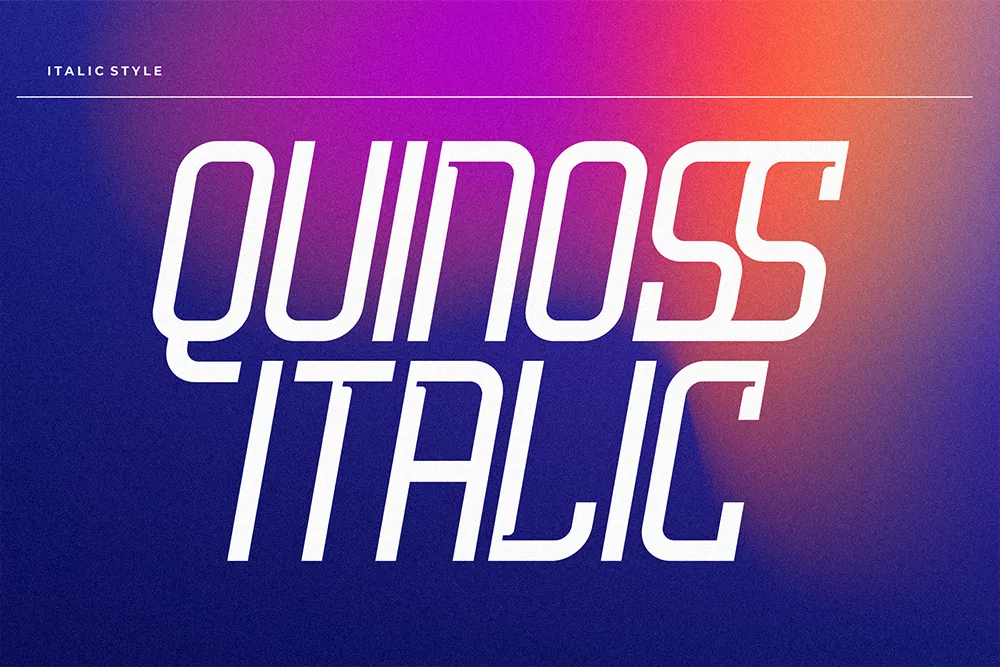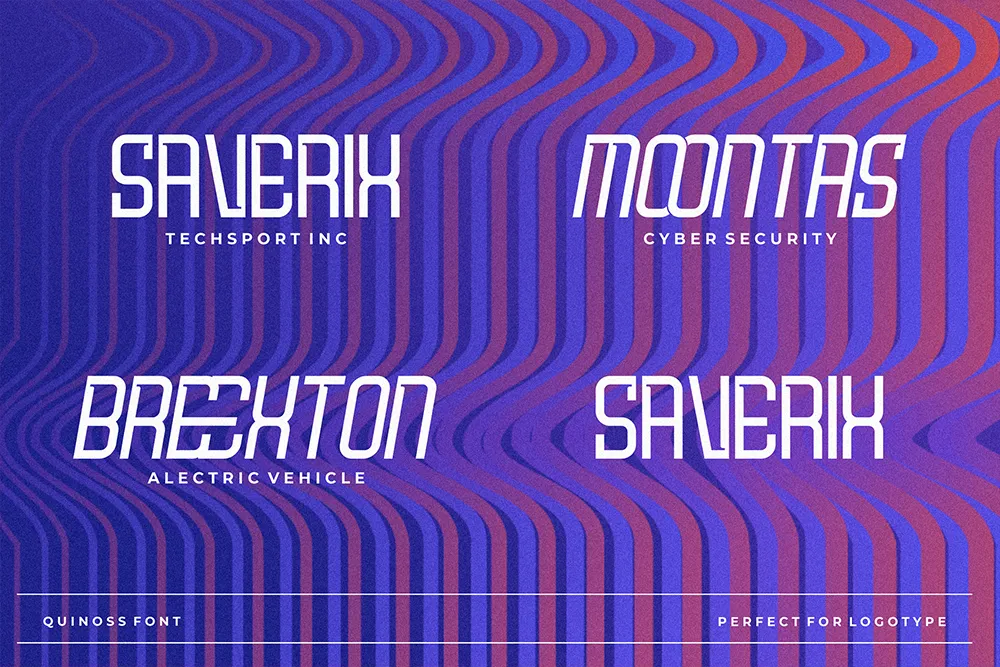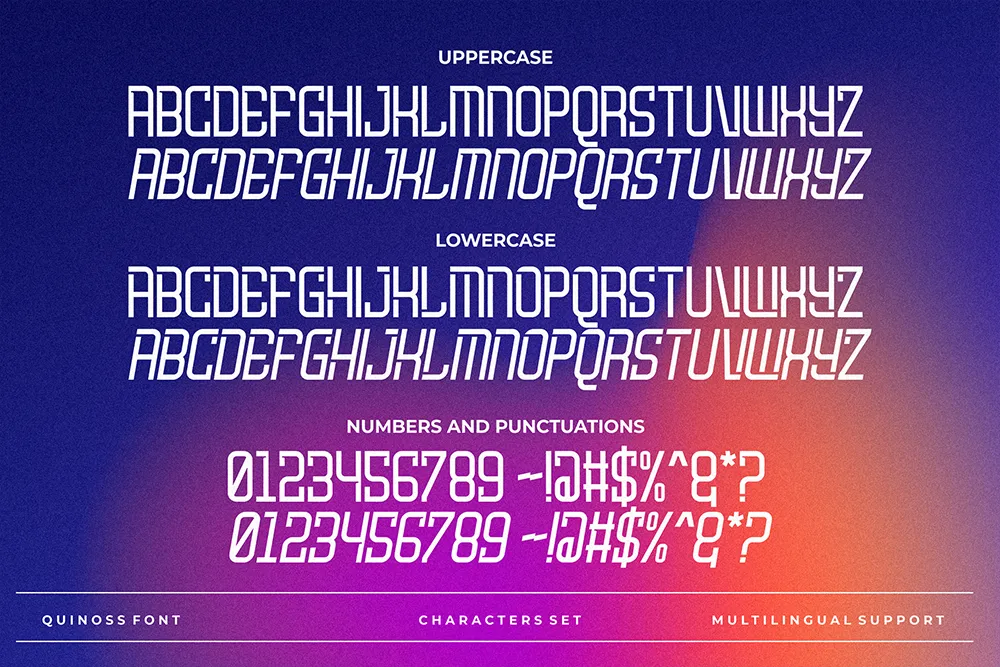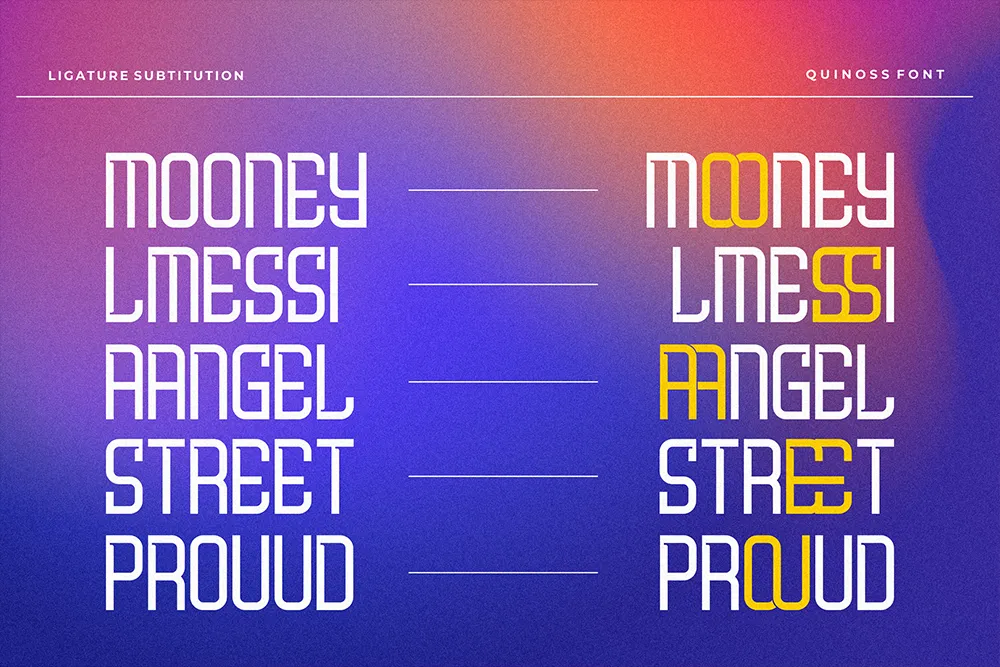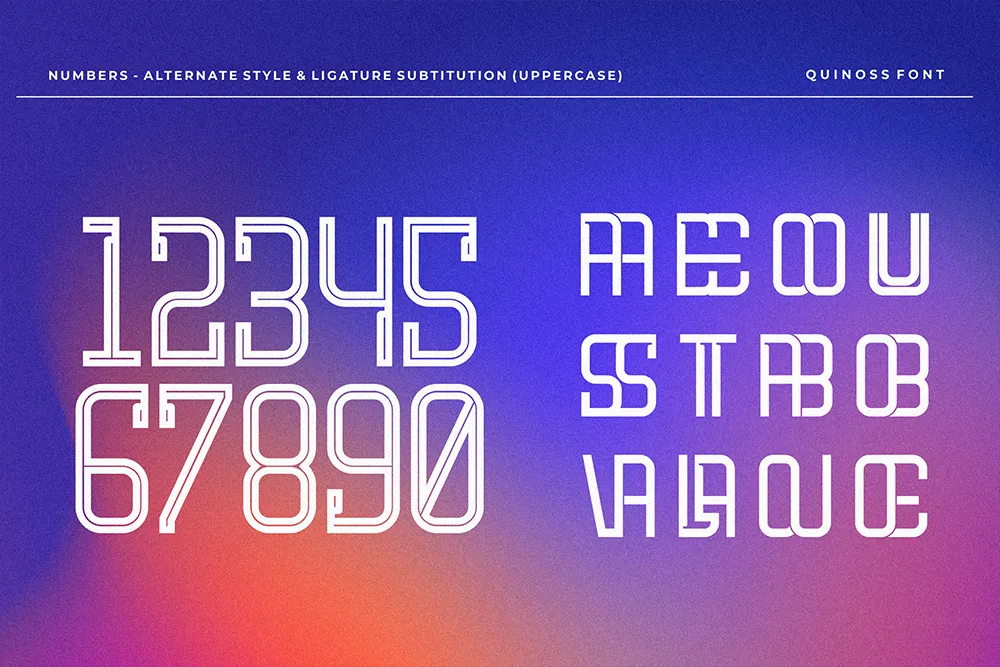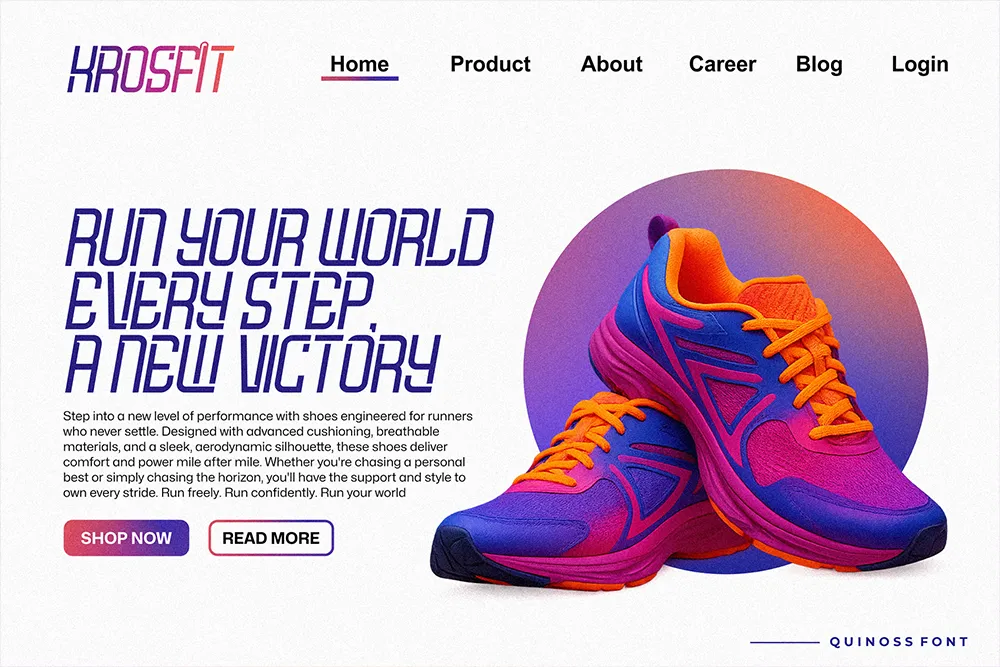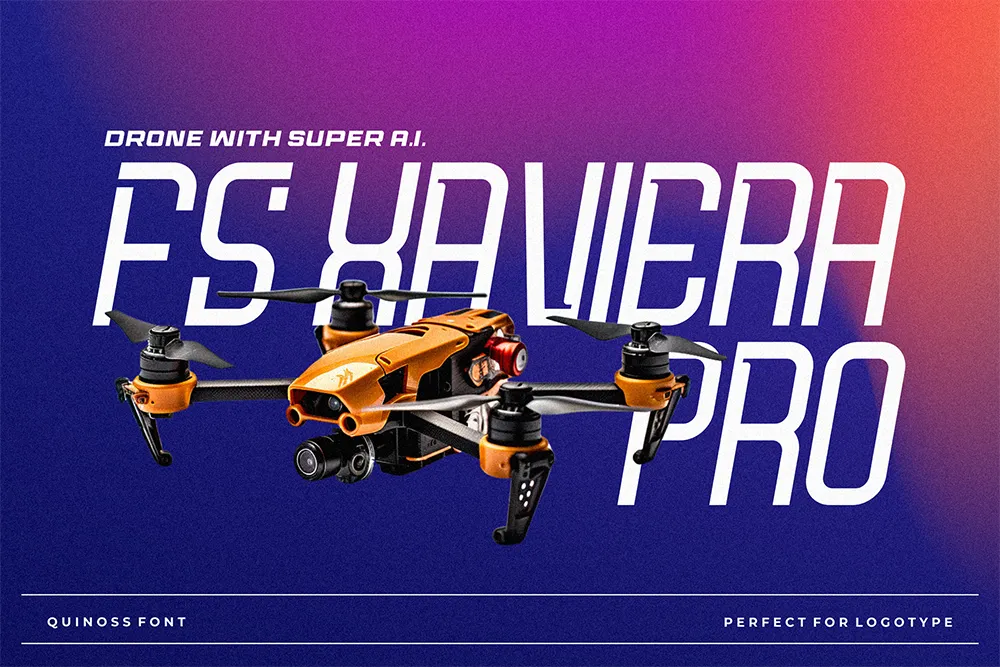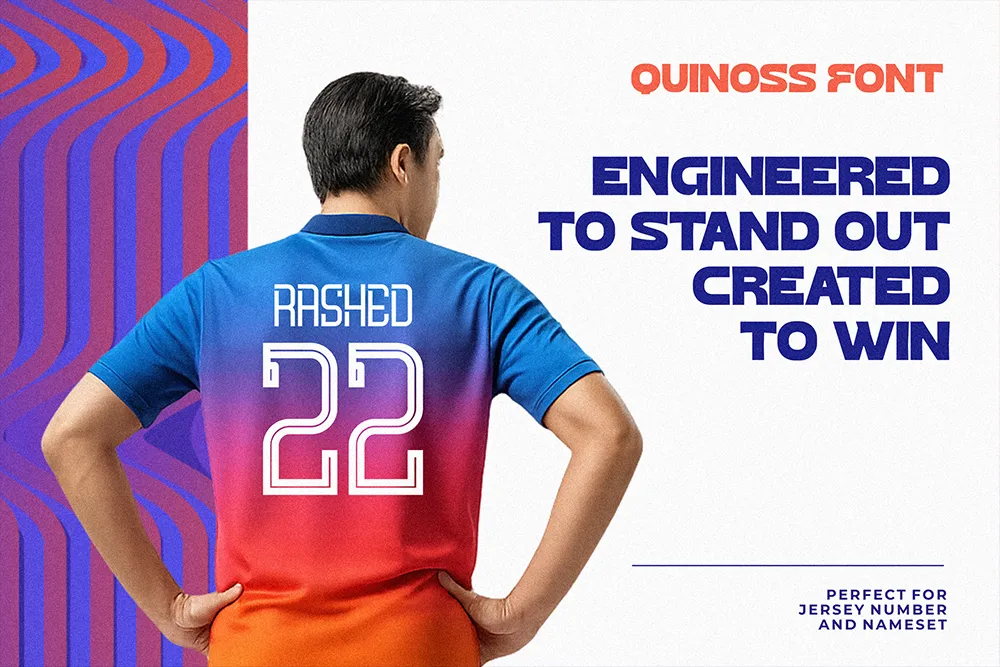
Quinoss
Quinoss Modern Sport Font for Bold Athletic Design
Quinoss is a Modern Sport Font designed for projects that need speed, structure, and visual confidence. It brings a strong athletic personality into your typography, making it a practical choice for sports branding, team graphics, jersey designs, racing visuals, fitness campaigns, esports layouts, and bold product identities.
Built with both uppercase and lowercase characters, Quinoss gives designers room to create commanding headlines while still keeping subtext readable and versatile. The letterforms feel balanced, modern, and assertive, giving your design a clean competitive edge without becoming too heavy or difficult to use.
This font is made for buyers who want more than a simple bold typeface. Quinoss offers Regular and Italic styles, extra ligatures, number alternates, full punctuation, and multilingual support. That combination makes it flexible for brand systems, merchandise, digital ads, packaging, posters, and online graphics where strong typography needs to perform across multiple formats.
Quinoss carries a modern athletic look with a strong sense of motion. The Regular style feels grounded, solid, and powerful, making it ideal for team names, product labels, logo marks, and sports headlines. The Italic style adds a forward-leaning energy that suggests speed, momentum, and competitive movement.
The design personality sits between sport, racing, tech, and futuristic branding. It can feel aggressive when used in all caps, but it can also become clean and professional when paired with controlled spacing, minimal layouts, and strong color systems.
For designers working on modern performance brands, Quinoss helps create typography that feels sharp, confident, and ready for action. It works well for visual identities that need to communicate ambition, discipline, energy, and high-performance character.
Best Use Cases
Quinoss is especially useful for bold display applications where typography becomes a central part of the design. Use it for sports team logos, gym branding, tournament posters, athletic apparel, jersey lettering, racing graphics, esports identities, product packaging, social media campaigns, event banners, YouTube thumbnails, and digital ads.
The number alternates make it a strong option for sports-related layouts that rely heavily on numeric details, such as jersey numbers, race numbers, event dates, score graphics, ranking visuals, or limited-edition product labels. These alternates add variety and futuristic character, helping your numeric typography feel more custom and less generic.
Because Quinoss includes both Regular and Italic styles, it gives designers a simple way to build hierarchy. Use Regular for stable brand marks and main titles, then use Italic for motion-driven accents, callouts, slogans, or secondary text that needs extra energy.
Key Features of Quinoss Modern Sport Font
• Uppercase and lowercase characters with balanced letterforms for bold headlines and versatile subtext.
• Regular and Italic styles for grounded power or forward-leaning momentum.
• Extra ligatures for dynamic letter combinations and smoother text flow.
• Number alternates for unique numeric variations with a futuristic character.
• Full punctuation for complete display typography needs.
• Multilingual support for broader design usage across supported languages.
Designers love Quinoss because it gives athletic projects a strong visual voice without requiring complicated styling. The font already carries movement, tension, and impact, so it can quickly turn simple words into a confident brand asset.
For logo designers, Quinoss provides a bold foundation for sports clubs, fitness brands, racing teams, performance products, and esports identities. For apparel designers, it works well on shirts, hoodies, caps, jerseys, and merchandise that need large readable lettering with attitude.
For digital creators and content sellers, Quinoss can help create scroll-stopping thumbnails, social media templates, gaming overlays, poster packs, and digital products. The Italic style is especially useful when a layout needs extra movement, while the Regular style keeps the design grounded and powerful.
The number alternates are also a practical advantage. Many sport and racing projects depend on numbers as a major visual element, and Quinoss gives those numbers more personality. This makes it easier to create layouts that feel custom, energetic, and visually memorable.
For a strong sports and speed-focused pairing, combine Quinoss with Brake Disc. Brake Disc supports racing and automotive-themed visuals, making it a natural companion for event graphics, racing posters, and high-energy merchandise.
Choose Quinoss when your design needs athletic confidence, modern movement, and bold visual presence. From team identities and racing graphics to apparel, esports visuals, and performance branding, this Modern Sport Font gives your typography the energy to lead the layout with purpose.